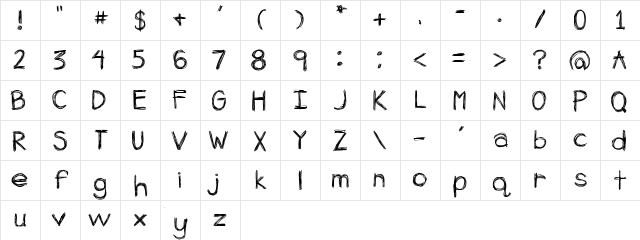
AppleSpice Regular Free Font
AppleSpice Regular
Foundry: Brielle Lang
Designer: Brielle
Design Context for AppleSpice
AppleSpice is a composed and adaptable typeface that performs quietly and consistently across a wide range of design contexts.